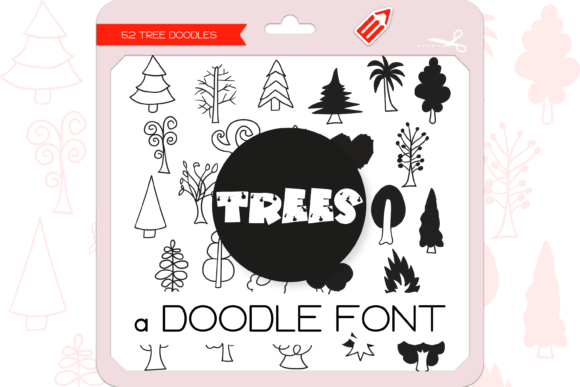
Prepare yourself for a new font experience with The Trees Font, a beautiful collection of 52 hand-crafted dingbats that will transform your creative visions into captivating realities. Inspired by nature's gentle touch and the intricate patterns etched into tree bark, this font captures the essence of the forest, bringing a touch of whimsy and charm to your digital creations.
The Trees Font is not just another font; it's an invitation to let your imagination run wild. Each doodle is meticulously designed to evoke a sense of wonder and playfulness. Whether you're a graphic designer seeking unique elements for your projects, a crafter looking to add a personal touch to your creations, or simply someone who appreciates the art of beautiful typography, The Trees Font has something for everyone.
With its versatile style, The Trees Font seamlessly blends with a wide range of design aesthetics. Its playful spirit adds a touch of whimsy to invitations, greeting cards, and social media graphics, while its intricate details bring depth and character to logos, branding materials, and website designs. The possibilities are as boundless as your creativity.
So, embrace the charm of The Trees Font and embark on a journey of artistic exploration. Let your imagination soar, breathe life into your creative endeavors, and make a statement that resonates with your audience. With its undeniable charm and endless versatility, The Trees Font is the perfect choice for those who dare to be different and leave a lasting impression.